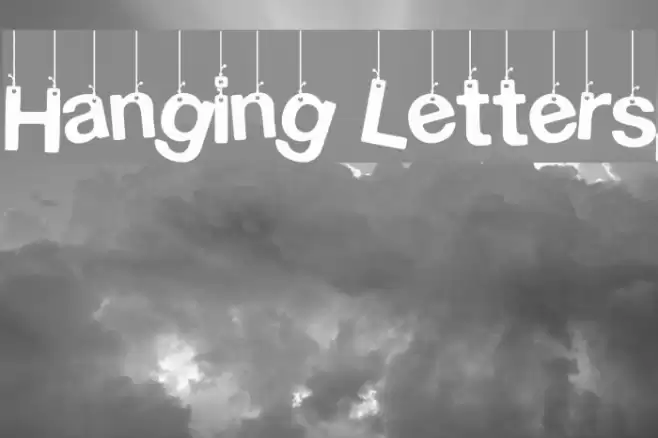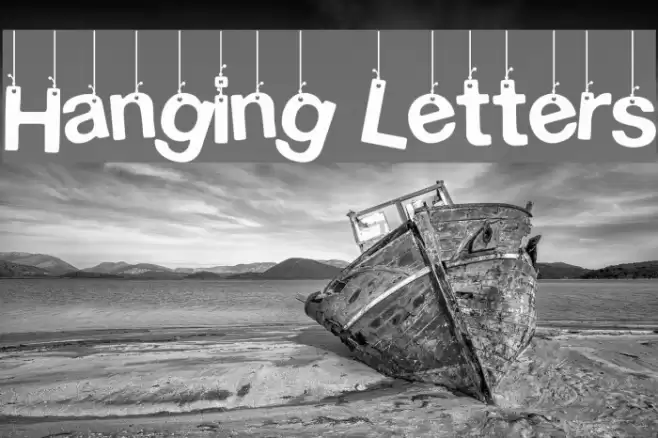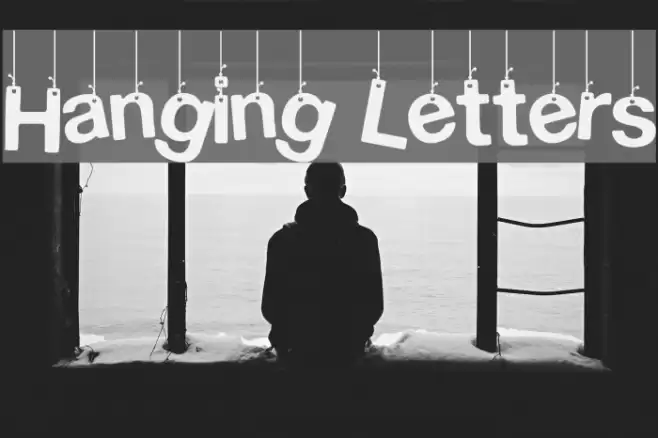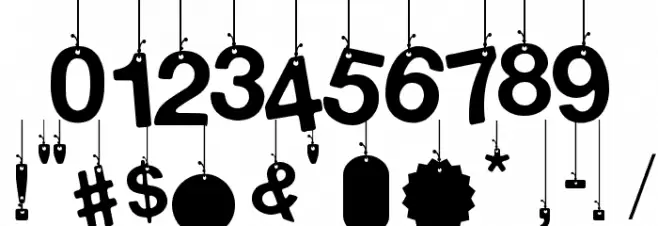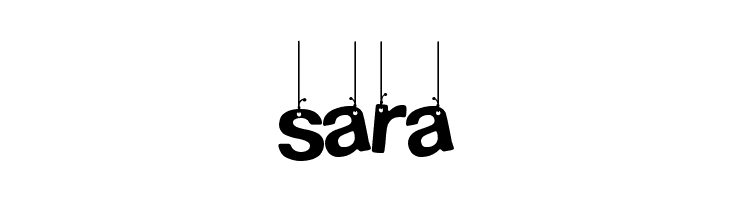
Hanging Letters Font
Hanging Letters Description
This playful and creative font features characters that appear to be hanging from hooks, giving it a unique and whimsical appearance. The letters are bold and rounded, with a consistent thickness throughout, creating a friendly and approachable feel. The hanging effect is achieved with small hooks and lines extending from the top of each character, adding a decorative touch that makes the font stand out. The overall design is clean and modern, with a touch of fun that makes it suitable for a variety of creative projects.
A playful, bold font with characters hanging from hooks, offering a whimsical and modern look from Uncategorized fonts.
- Proposed Projects: Ideal for children's books, playful branding, party invitations, and creative posters.
- Overall Style: Modern, Decorative